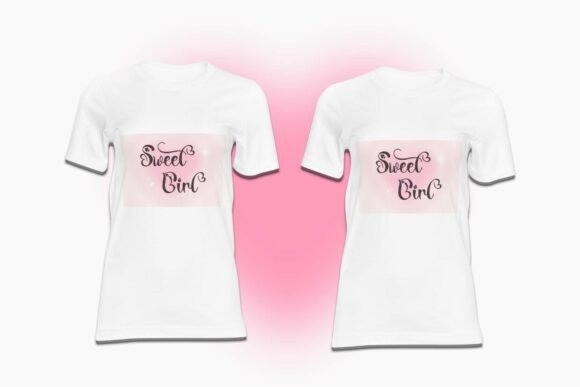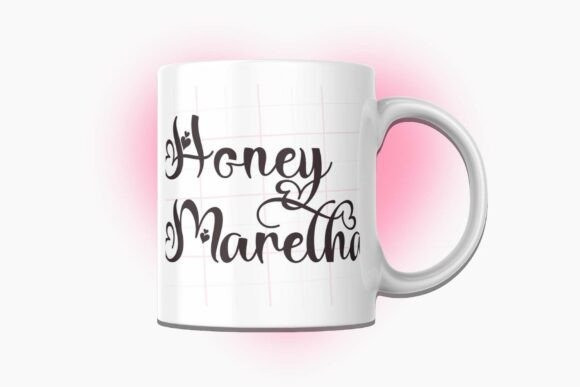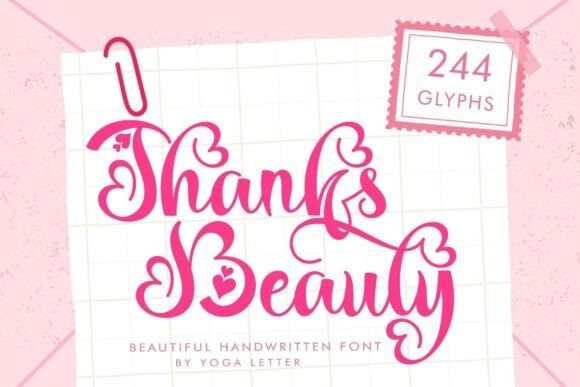
Thanks Beauty Font is a beautiful handwritten font with heart-shaped decorations. It features uppercase and lowercase letters, numerals, ligatures, punctuations, and multilingual support. It’s perfect for all wedding projects, invitations, Christmas, Valentine’s Day, engagements, winter, fall, and autumn, print, banners, posters, and more.